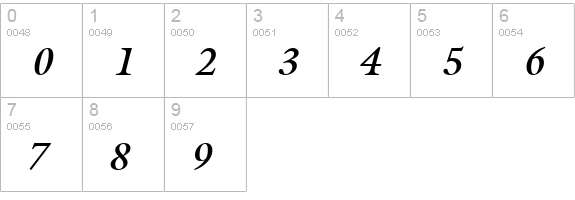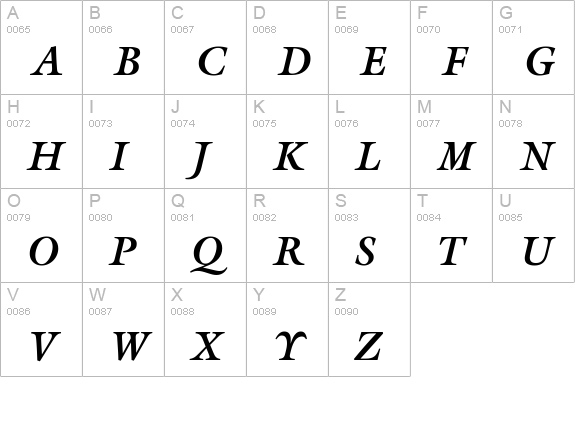
Acanthus SSi Bold Italic is a strong, high-contrast, italic variant in the Acanthus typeface family \xE2\x80\x94 well suited to headlines, attention-grabbing titles, and strong calls-to-action.
Acanthus SSi Bold Italic font is a stunning and bold typeface that exudes elegance and sophistication. With its intricate details and graceful curves, this font is perfect for adding a touch of luxury to any design project. The bold italic style lends a sense of drama and flair, making it ideal for headlines, logos, and other prominent text. What makes Acanthus SSi Bold Italic font even more appealing is that it is freely available to download at FontsMarket.com. This means you can easily access this exquisite font to elevate your designs without any cost involved. Don't miss out on the opportunity to enhance your creative projects with the beauty and versatility of Acanthus SSi Bold Italic font. Download it today and let your designs shine with sophistication and style.